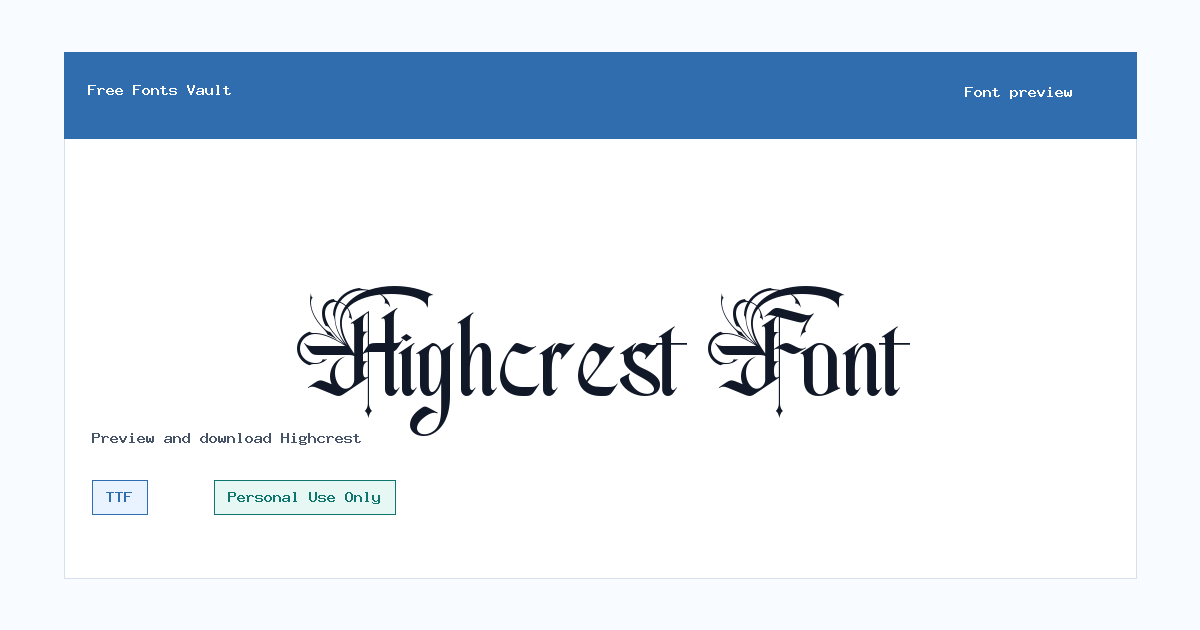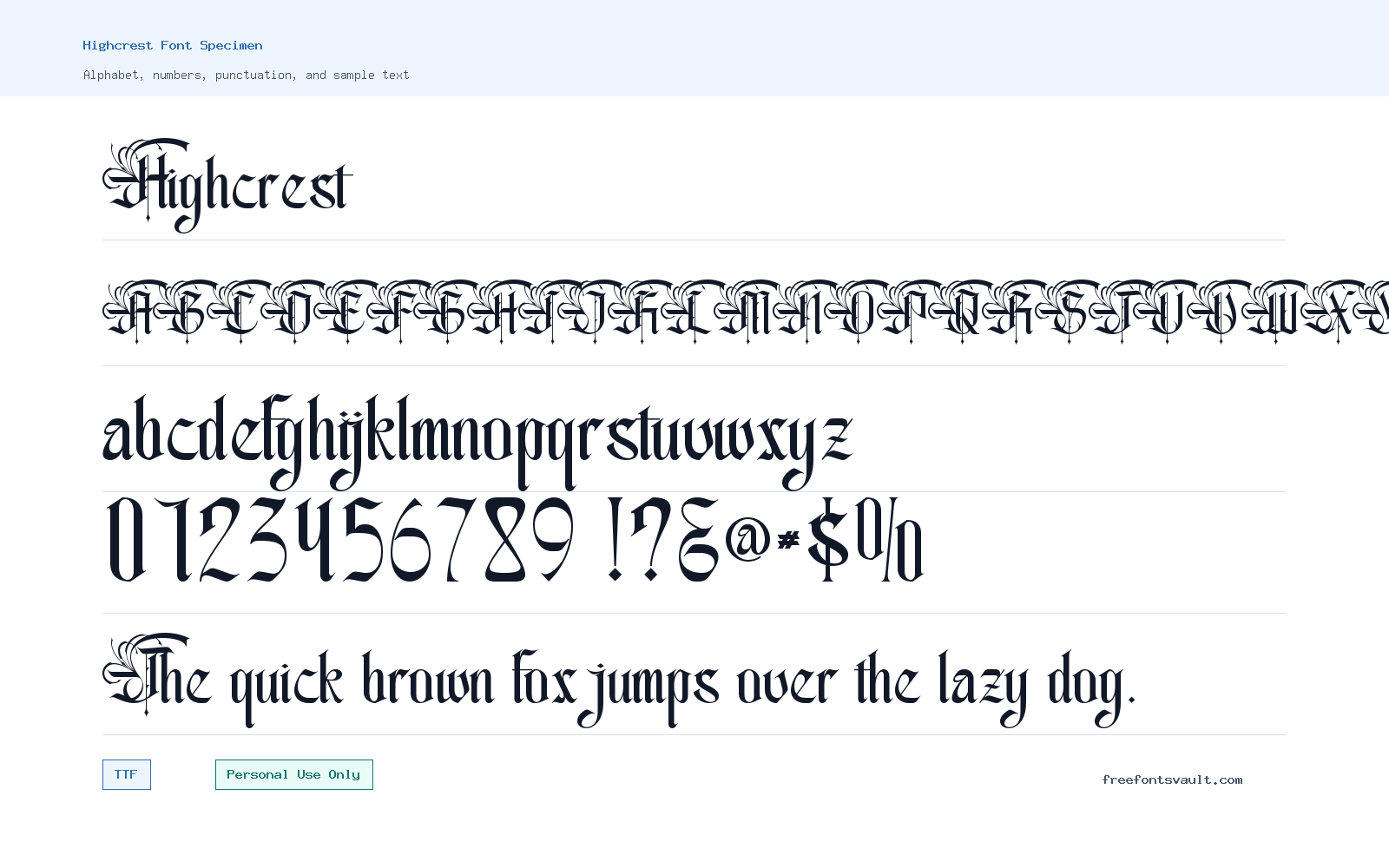
Highcrest
- Designer Letterara
Highcrest is a blackletter-style display font with a strong, decorative look made for short text, titles, and visual branding concepts. It is best used when you want a bold medieval or gothic mood without relying on long blocks of copy.
About Highcrest
Highcrest uses the sharp, ornamental rhythm people expect from blackletter lettering: compact shapes, dramatic vertical strokes, and a formal decorative feel. That makes it a good fit for designs where the font is meant to become part of the artwork rather than sit quietly in the background. It can work well for logo drafts, poster headlines, music artwork, badges, apparel graphics, labels, packaging mockups, invitations, and social media graphics where the main word or phrase needs a strong personality.
Because Highcrest is a display font, it is most effective in short bursts. Try it with a brand name, a single title, initials, a short quote, or a few words in a poster layout. For longer text, pair it with a clean sans serif, a readable serif, or a simple neutral font so the decorative letterforms do not compete with the rest of the design. In web mockups, use Highcrest for hero headings or logo treatments, then switch to a simpler font for menus, paragraphs, buttons, and body content. This keeps the design readable while still letting the blackletter style carry the visual tone.
- Blackletter-inspired display style suited to titles, logos, badges, posters, and decorative short text
- Logo concepts, wordmarks, monograms, and brand mockups that need a gothic or heritage-inspired display style
- Posters, album-style artwork, apparel graphics, labels, invitations, and social media headers with short headline text
- Web design mockups where the font is used for hero titles, mastheads, or decorative section headings
For the best results, preview Highcrest with the exact words you plan to use. Blackletter fonts can change character depending on capitalization, repeated letters, and spacing. Test all-caps, title case, and a few alternate layouts before committing. Keep surrounding typography simple, give the letters enough room, and avoid using the font at small sizes where the decorative details may lose clarity.
What kind of font is Highcrest?
Highcrest is a blackletter-style display font. It is meant for decorative use, especially short titles, logos, posters, badges, and other designs where the lettering is a main visual element.
Is Highcrest good for body text?
Highcrest is not ideal for long paragraphs. Use it for headings, names, short phrases, or decorative accents, then pair it with a simpler serif or sans serif for readable body text.
What fonts pair well with Highcrest?
Pair Highcrest with clean, quiet fonts. A neutral sans serif can make posters and web mockups easier to read, while a restrained serif can support a more traditional layout without competing with the blackletter headline.